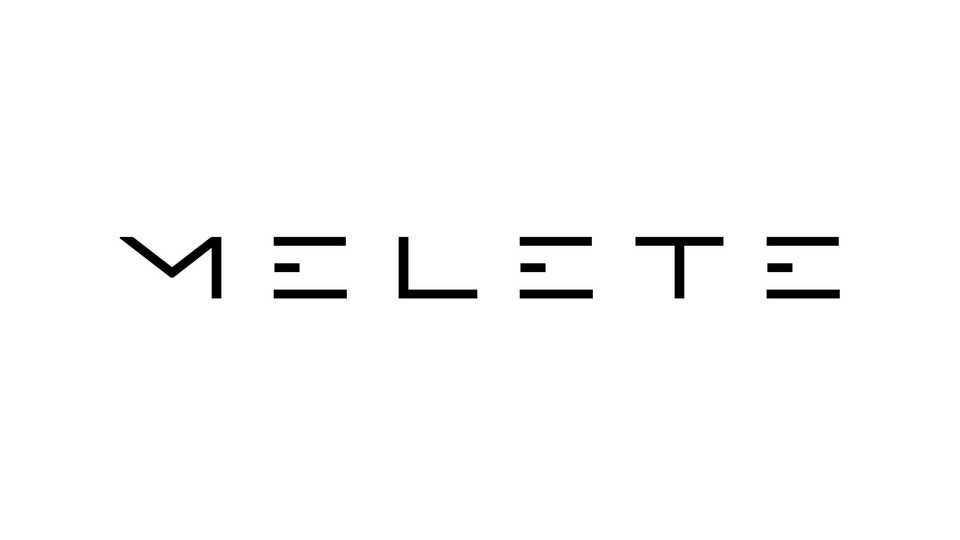
Download Melete typeface, a sans serif font family that aims to create an atmosphere like the title of a science fiction movie. While sacrificing some readability, Melete has a spacious margin to create a futuristic atmosphere.
Designer: Sora Sagano